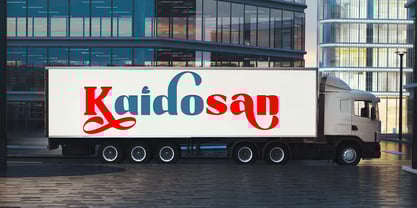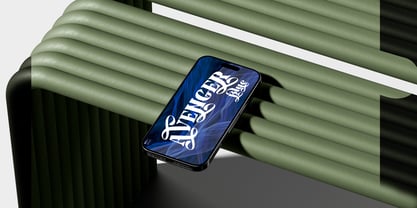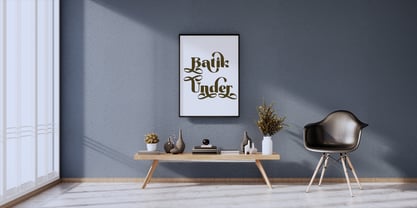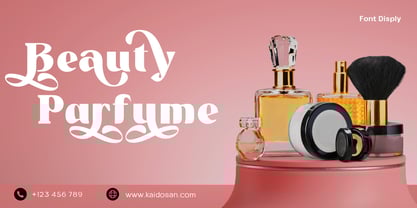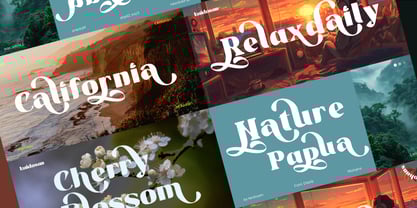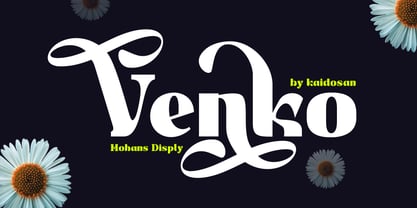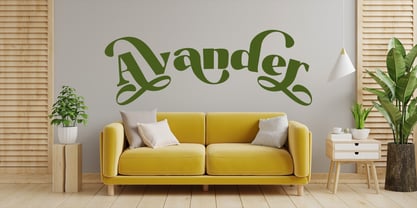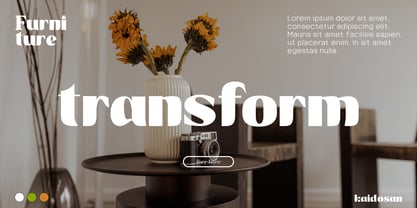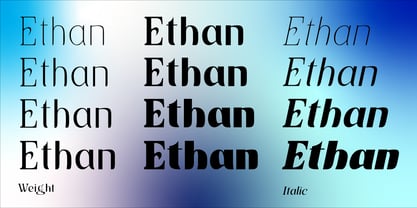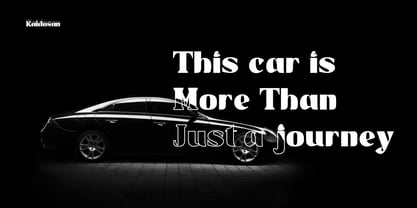
Avander
by Kaidosan
The Avander Font Family was designed by Muhammad Ansari and published by Kaidosan. Avander contains 18 styles and family package options.
Avander is a retro serif font that seamlessly blends classic charm with a modern touch. Crafted with meticulous attention to detail, this font strikes the perfect balance between elegance and visual strength. Its distinctive, bold serifs deliver a strong vintage vibe, while the smooth curves of each letter add a dynamic yet readable quality. Ideal for a variety of creative projects—from logos and posters to packaging—Avander not only exudes a sense of nostalgia but also conveys a sense of luxury and sophistication. With precise quality, this font ensures that your designs not only capture attention but also leave a lasting, professional impression. Make every word stand out with "Avander," a font that goes far beyond mere typography.